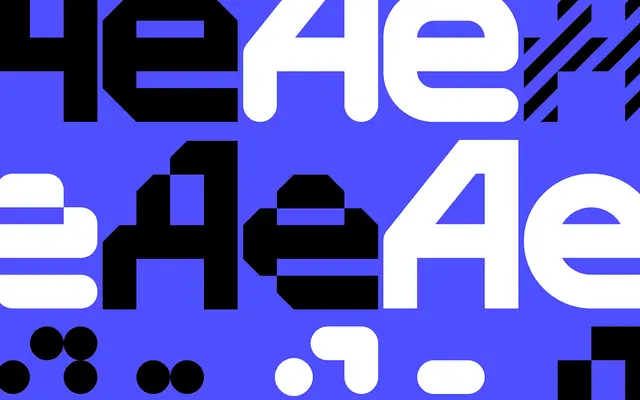
Two Type System
A system of 15 modular typeface families sharing a common glyph set and grid, spanning dot, bar, stroke, stencil and other geometric construction approaches across up to nine weights each.
MuirMcNeil's Two Type System brings 15 typeface families under a single structural framework, with every glyph mapped to a common grid to ensure calibrated visual consistency across the entire collection. The families range from TwoBar Mono and TwoDot through to TwoStroke and TwoTone, each exploring a distinct construction method whilst maintaining formal coherence with the rest of the system. At 418 fonts in total, it is a thorough and disciplined exploration of modular type design for display and graphic contexts.
The Two Type System is a collection of modular display typefaces constructed from a shared glyph set on a common grid, spanning dot, stroke, stencil, bar and other geometric construction methods typical of display and experimental type systems.